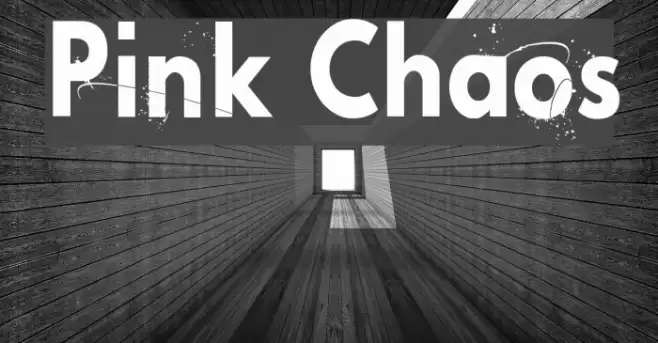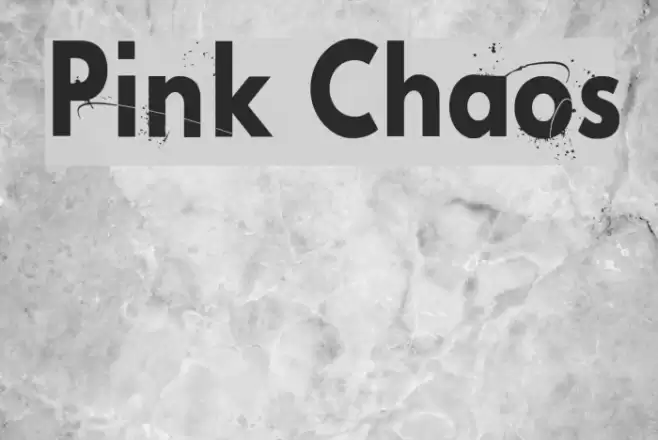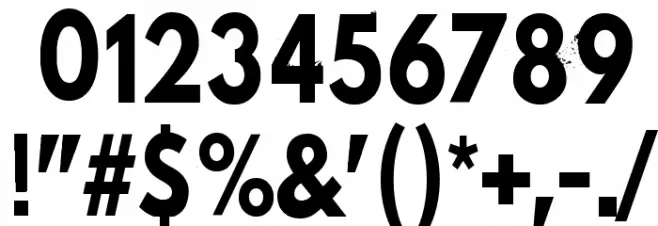
Pink Chaos Font
Pink Chaos Description
This font features a bold and distressed style, characterized by its strong, thick strokes and a rough, grunge-like texture. The uppercase and lowercase letters maintain a consistent weight, giving the font a robust and impactful appearance. The numerals and special characters follow the same design, ensuring uniformity across all glyphs. The distressed elements add a unique, edgy feel, making it suitable for projects that require a bold statement. The font's design is both modern and slightly rebellious, perfect for capturing attention.
A bold, distressed font with a grunge texture and strong impact from Uncategorized fonts.
- Proposed Projects: Ideal for posters, album covers, branding for edgy products, and any design needing a bold, attention-grabbing font.
- Overall Style: Modern, Edgy